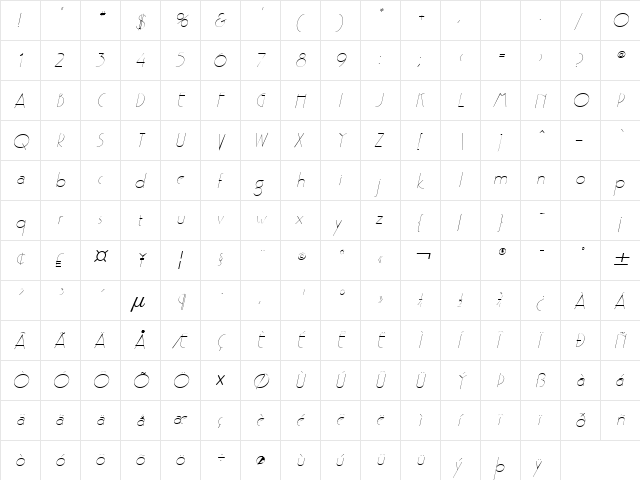
Gaston Italic
Design Context for Gaston Typeface
Gaston offers clean, dependable letterforms without strong stylistic allegiance, making it a practical choice for designers who need flexibility. The dynamic lean of this cut emphasises speed and emphasis in any layout.
Pro Tip: Try Gaston for annotation and caption copy alongside an upright companion — the contrast in angle creates a dynamic but ordered typographic system.